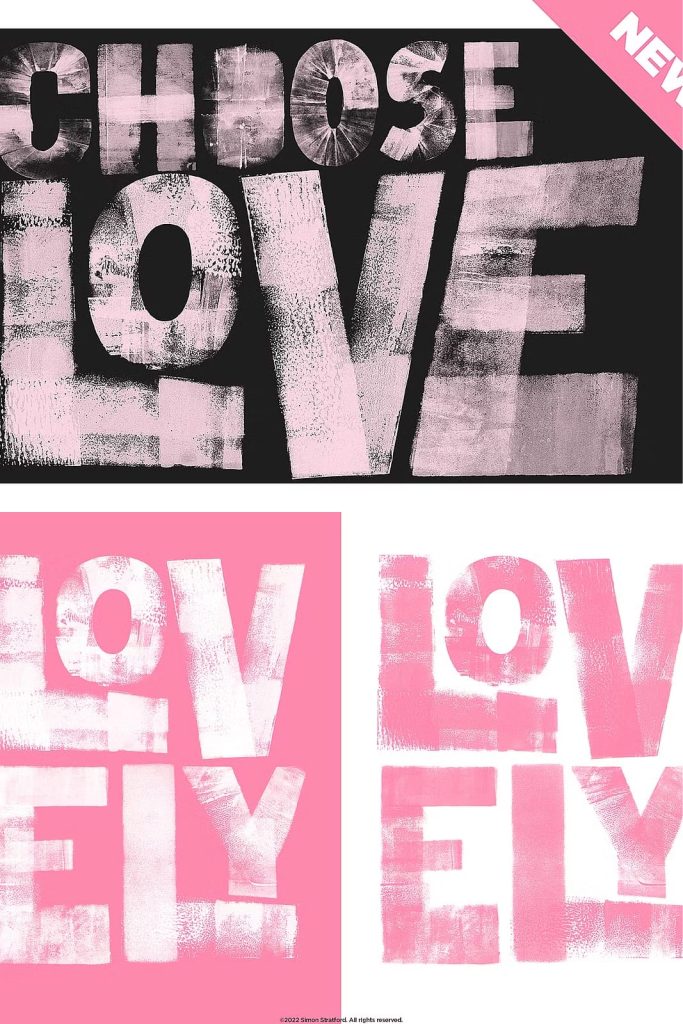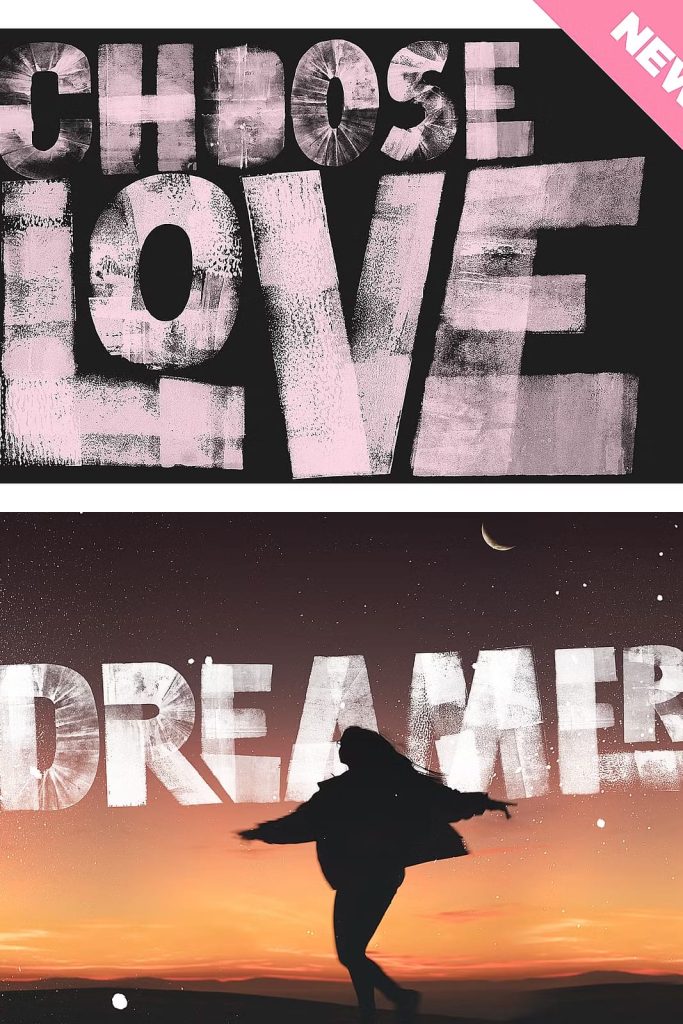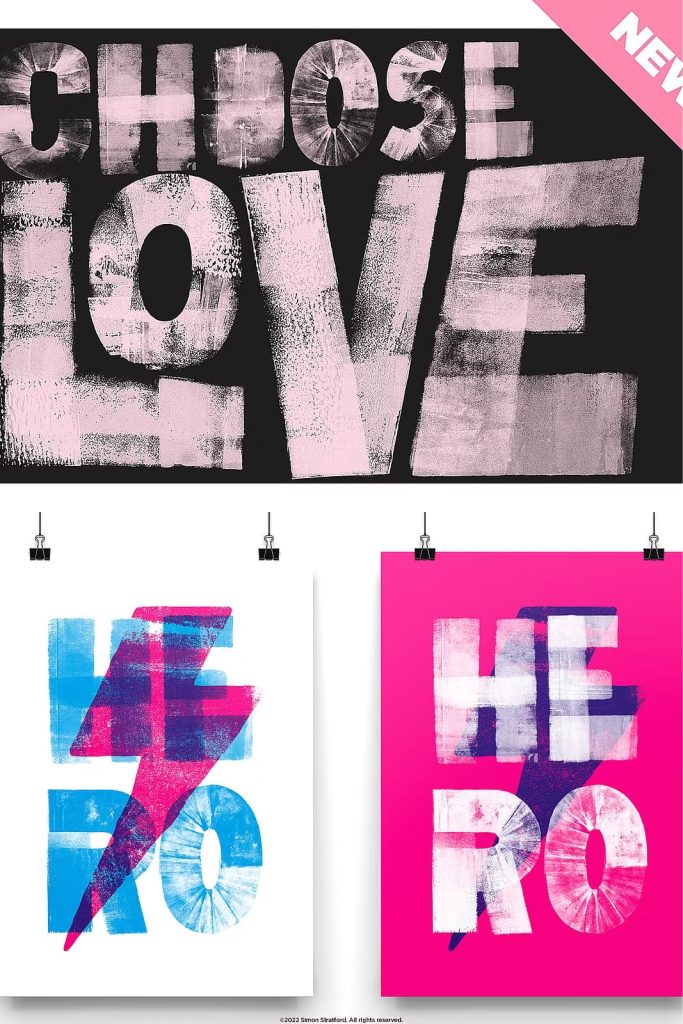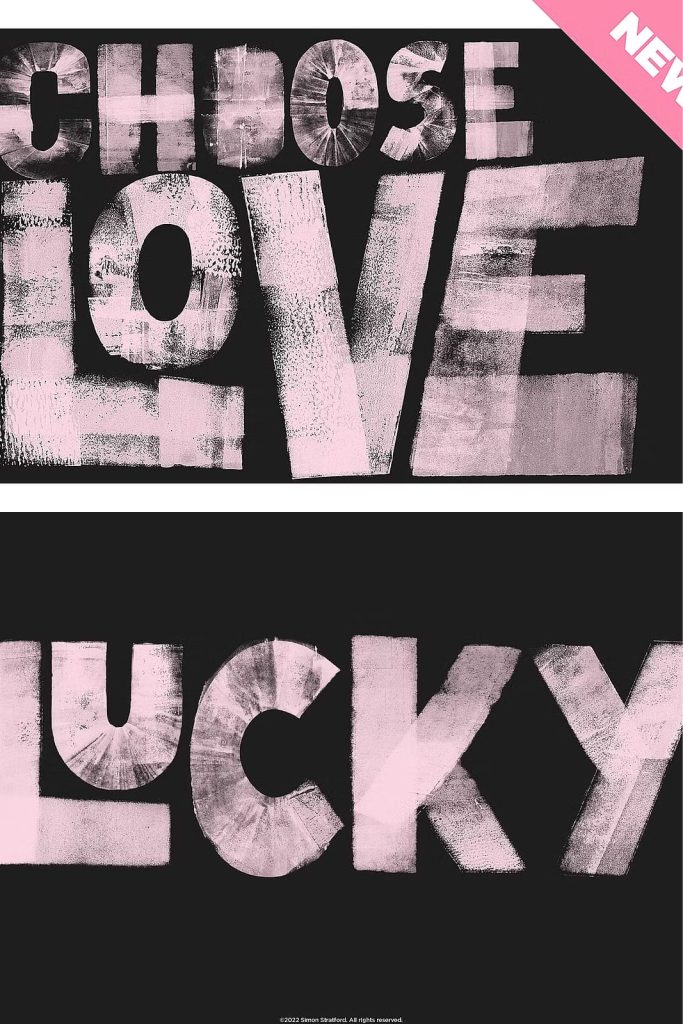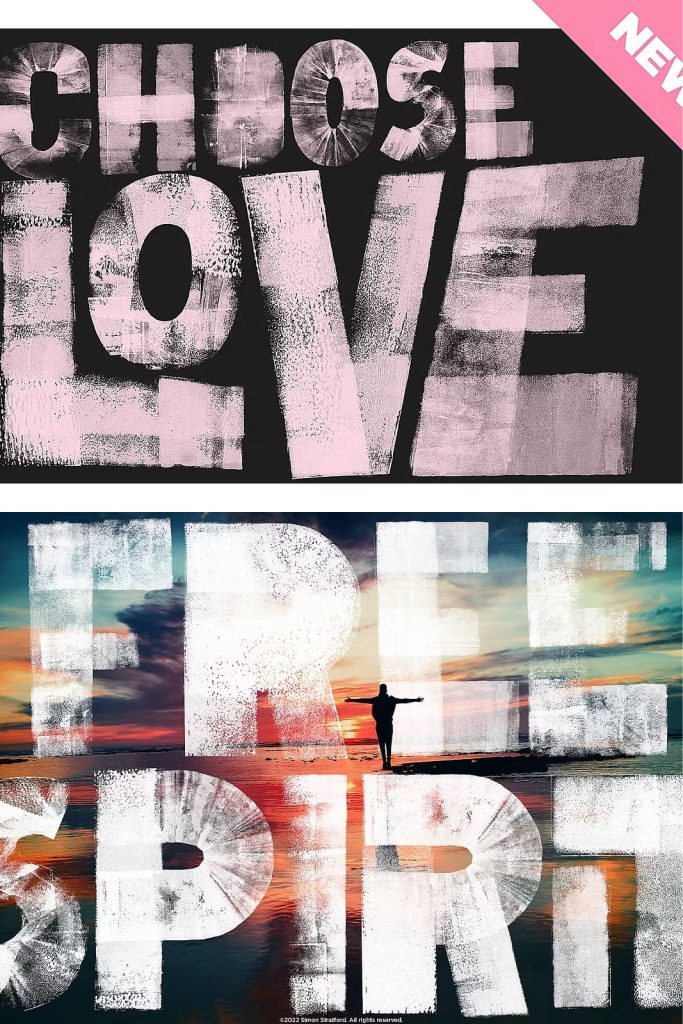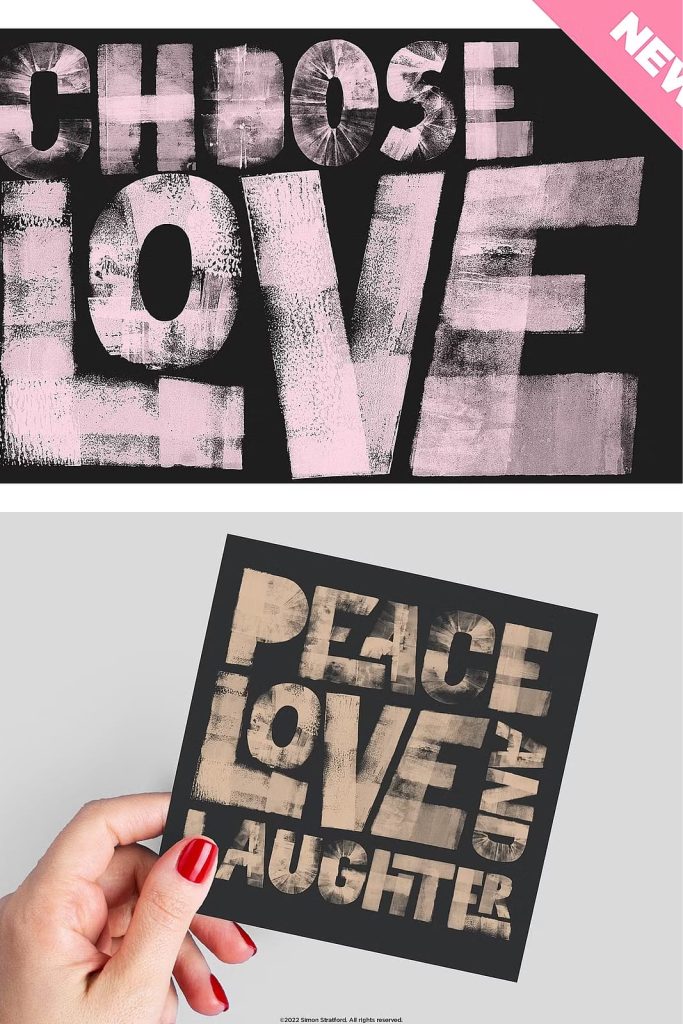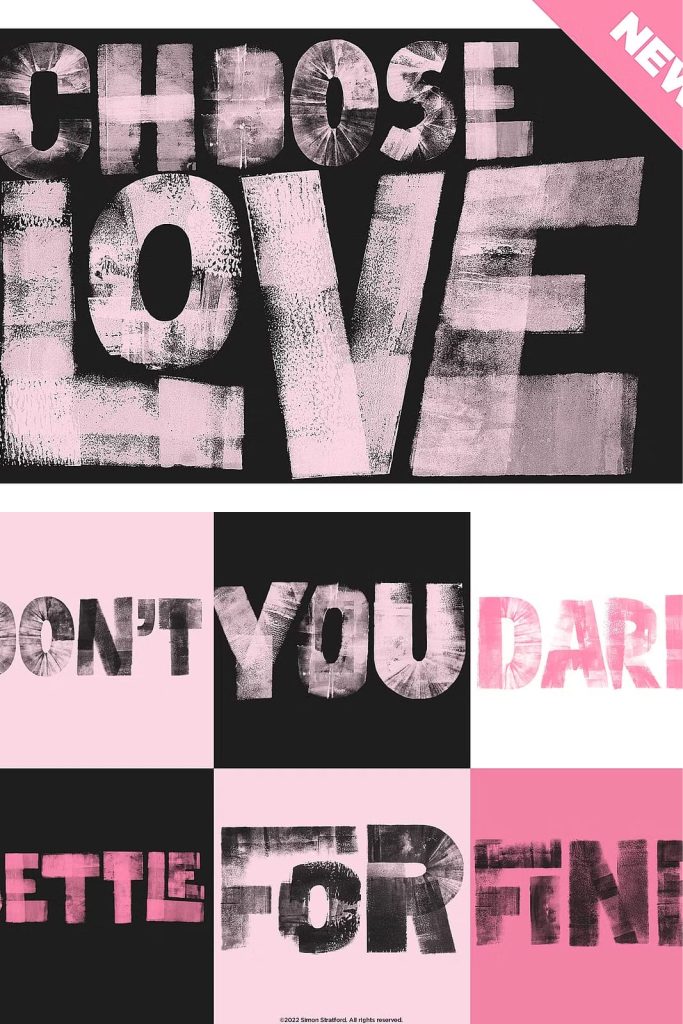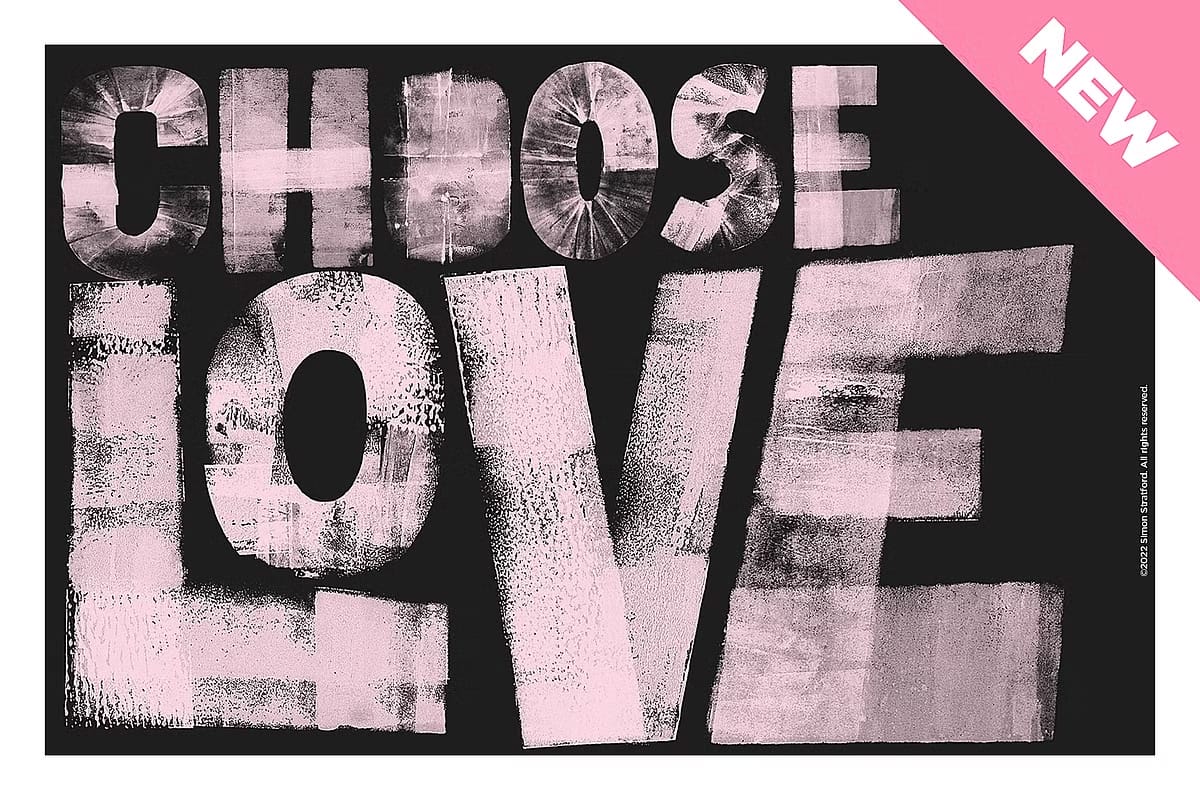
Display font Choose Love sans serif
Choose Love typeface by Simon Stratford. A hand-printed letterpress inspired, dirty ink display font packed full of awesome print details.
The font was created with cardboard cutouts and an ink brayer and then printed on paper, so it’s all handmade.
The details from the lettering print marks are quite staggering. You’ll be hard pushed to find a better hand-printed typeface like it.
It’s bold. It’s far from perfect. It’s full of imperfections and dirty marks—just the way I like it.